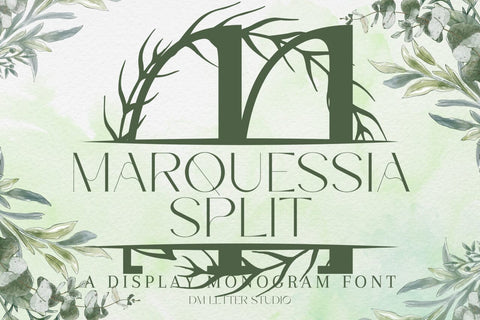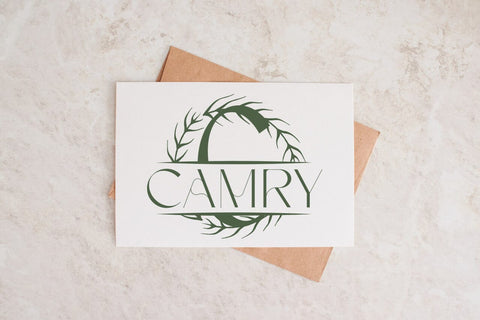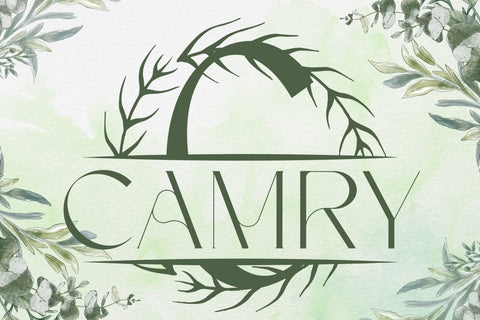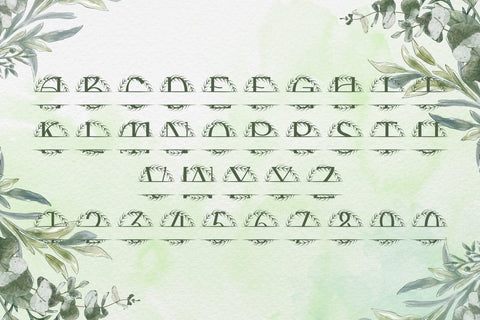
Marquessia Split Monogram Font
Meet Marquessia Split Monogram Font
Marquessia Split Monogram Font turns any initial into an heirloom-ready, name-driven emblem in seconds. Calm, confident letterforms project classic poise, while a precise horizontal split creates natural space for names, dates, or short words. Because spacing stays even and counters remain open, designs look polished from tiny tags to statement wall art. Use it for wedding keepsakes, family signs, door hangers, tumblers, ornaments, menus, and boutique packaging. Pair it with a clean sans or a light script and every layout stays readable and refined.
Where this split monogram font shines
Set one hero initial and place the family name inside the split for instant personalization. Next, try couple names for engagement gifts, venue names for signage, or short words like Home, Welcome, and Love for seasonal décor. Since the proportions favor clarity, your files scale smoothly for Cricut, Silhouette, Glowforge, and laser projects. As a result, batch customization becomes fast and consistent across your product lines.
Design tips for Marquessia Split Monogram
Keep the hero initial large and let white space breathe. Place the split at center or slightly low for a steady baseline. Choose a simple secondary font inside the split to protect legibility on small items. Because the style is poised and timeless, metallic foils, linen textures, and natural woods add instant value. Keep names concise so the composition stays balanced and clear at thumbnail size.
Uppercase alphabet optimized for split monograms
Why makers choose this split monogram font
You want fast personalization that still feels bespoke. Marquessia Split Monogram Font delivers consistent, high-end name designs in minutes while keeping your shop’s visual language cohesive across many product types.